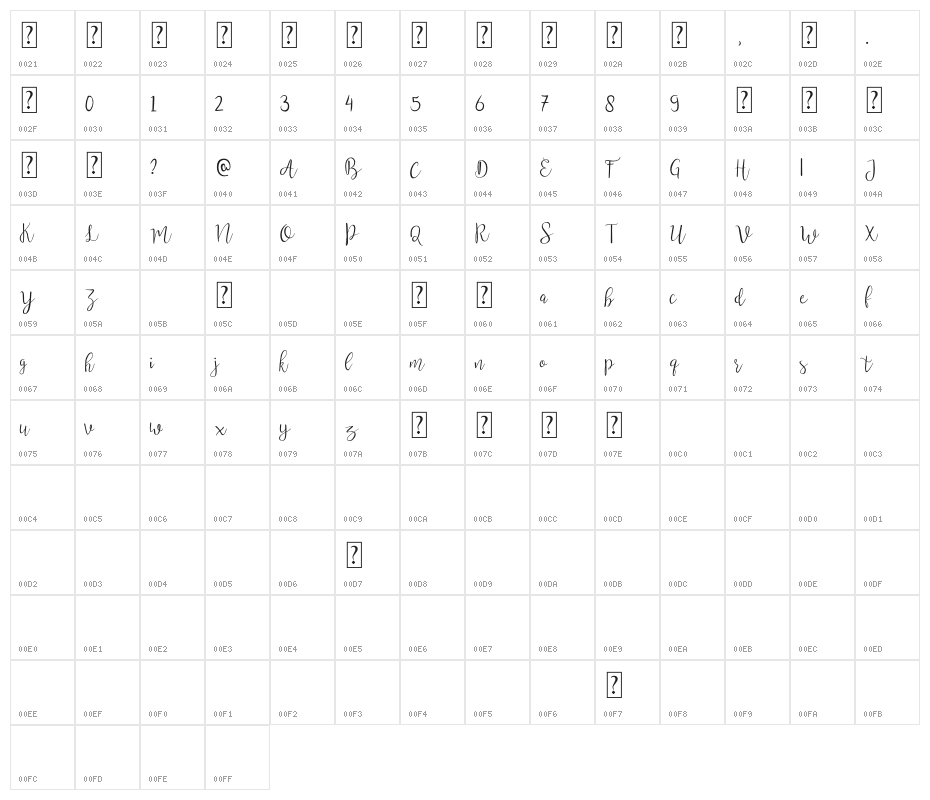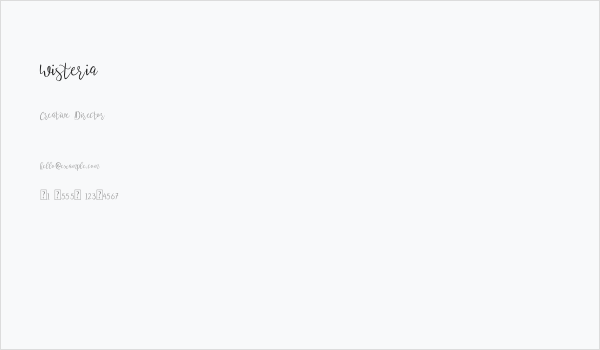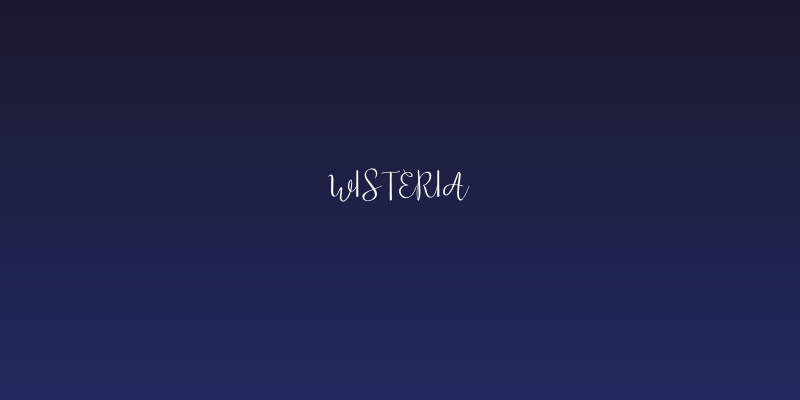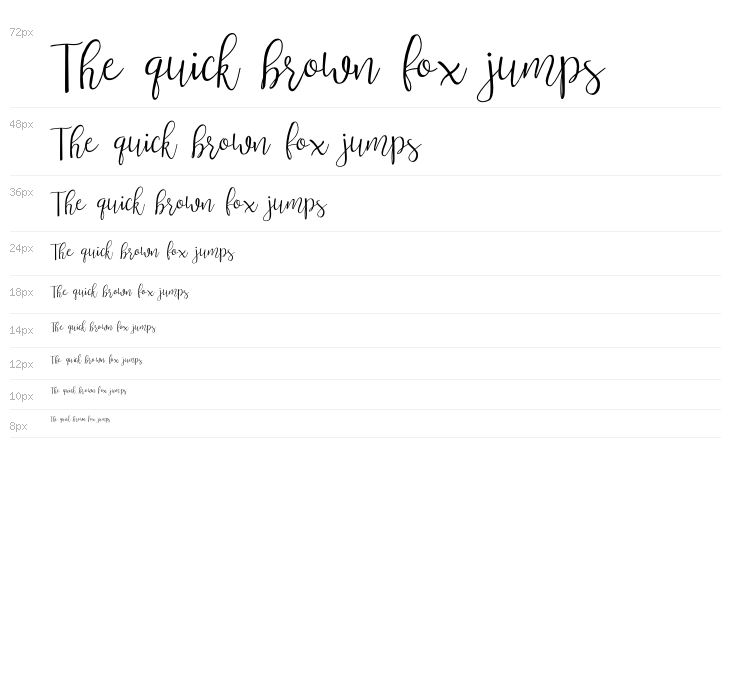
wisteria Font
wisteria Description
This font exudes a charming and elegant script style, characterized by its fluid, cursive strokes and graceful loops. The uppercase letters are bold and sweeping, while the lowercase letters maintain a consistent flow, adding a touch of sophistication. The numerals are clear and maintain the script's fluidity, making them easily readable. The special characters are designed with a playful yet refined touch, complementing the overall aesthetic. This font is perfect for projects that require a personal, handwritten feel, such as invitations, greeting cards, and branding materials.
Overall StyleElegant, Handwritten
Use CaseHeadlines, Logos, Invitations
Proposed ProjectsIdeal for wedding invitations, greeting cards, branding, and personal stationery.